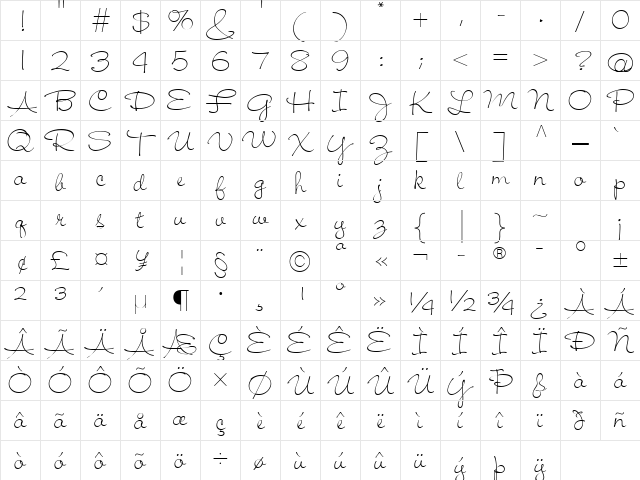
Jiffy Com Regular
Designer: Linotype Design Studio
Design Context for Jiffy Com
Jiffy Com is a composed and adaptable typeface that performs quietly and consistently across a wide range of design contexts.